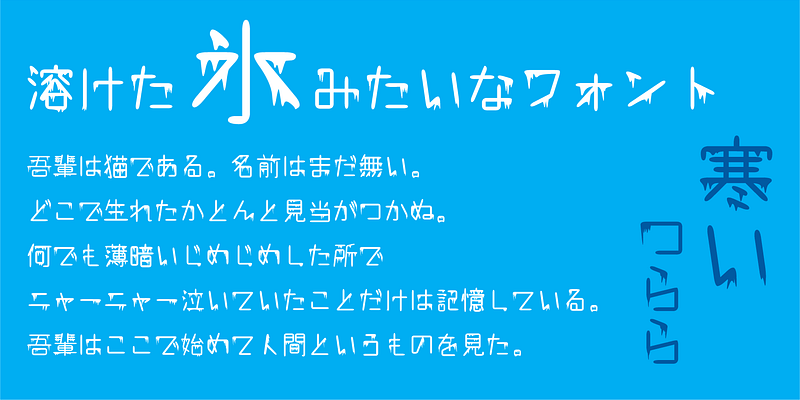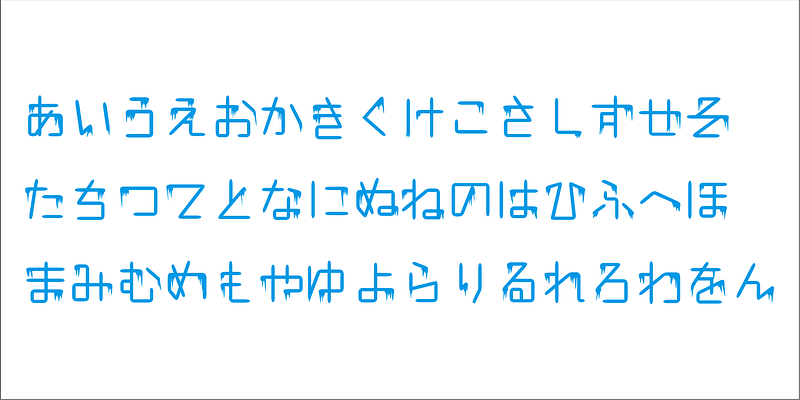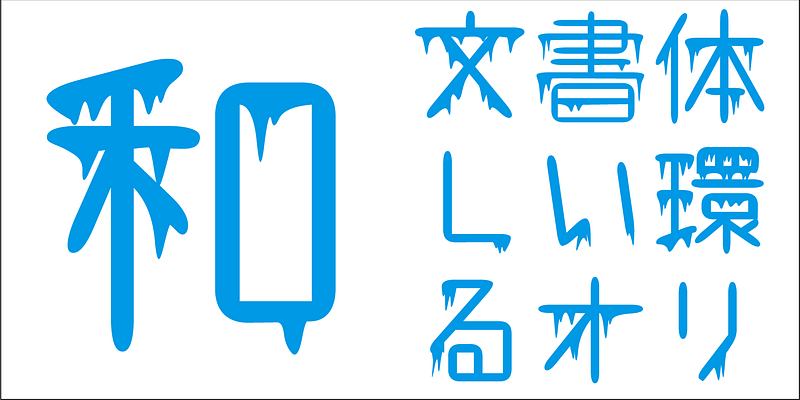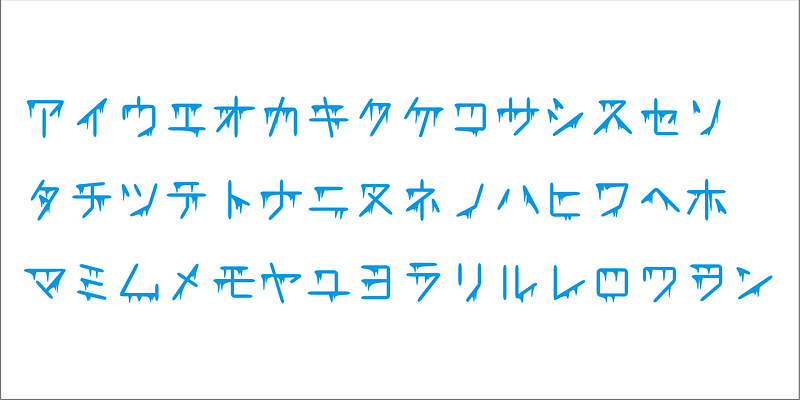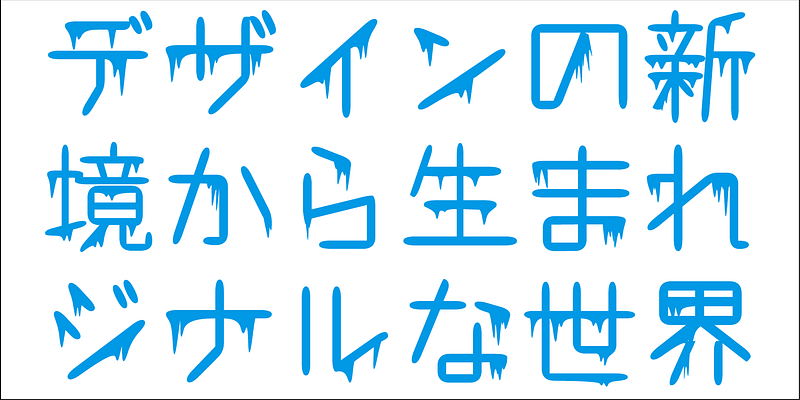
This typeface is based on Tsurara, one of the popular Gradeo series of typeface, but corners of the outlines are rounded to give an image of melting ice. It will be useful for display purposes as well as for superimposed text in movie clips.